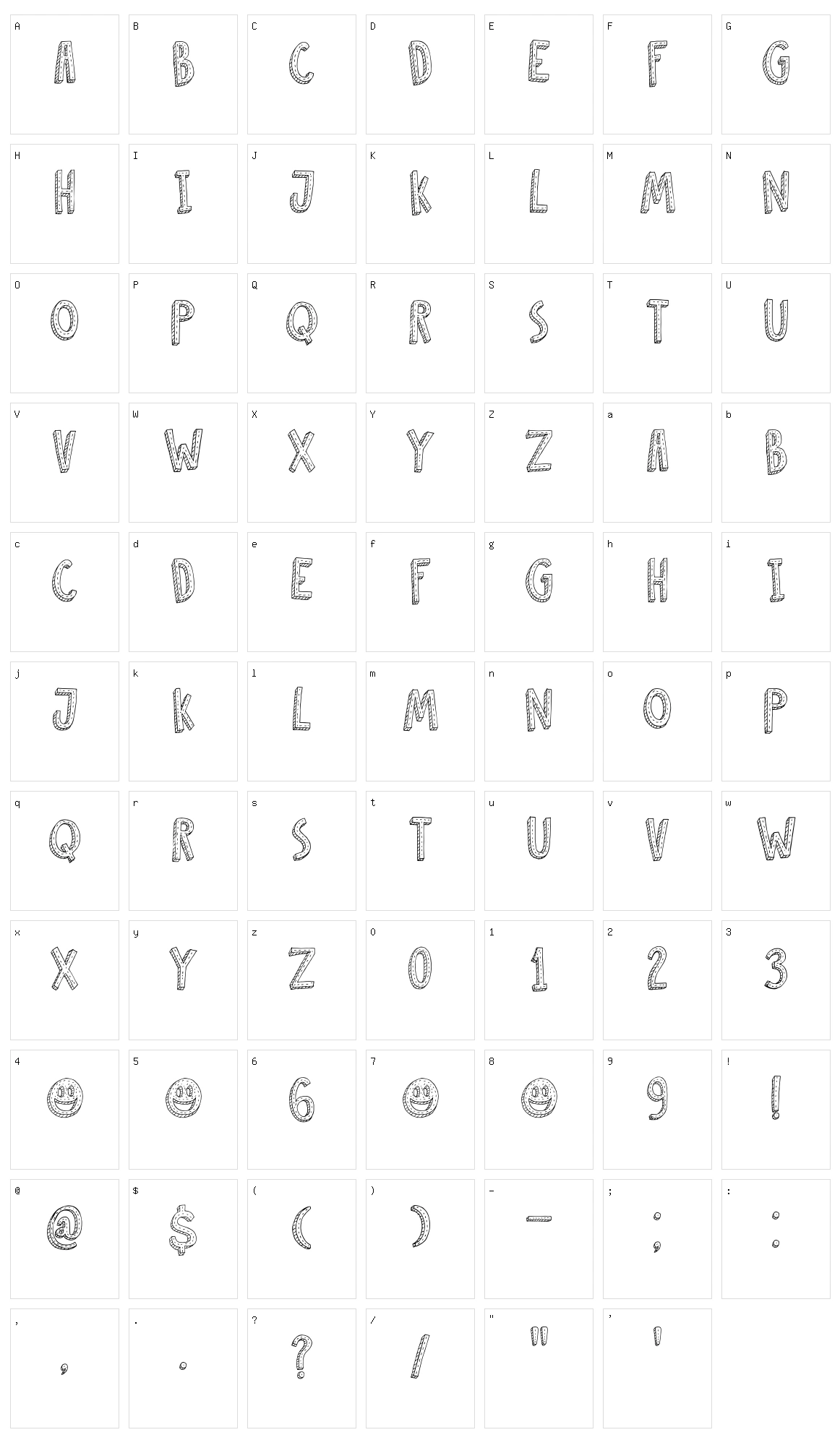
The free font Oslo Stitch is carefully designed by Hanoded, showcasing a thoughtful balance of creativity and usability and falls under the Cartoon font style. When you download the ZIP file, it contains only 192.31 KB of font files, making it lightweight and quick to download. Please review the license details below to understand permitted usage and distribution rights. If license information is not available, we recommend using this font for personal projects only or contacting the author directly for commercial usage permissions.